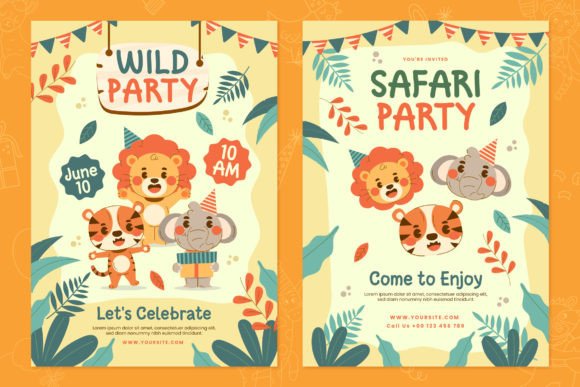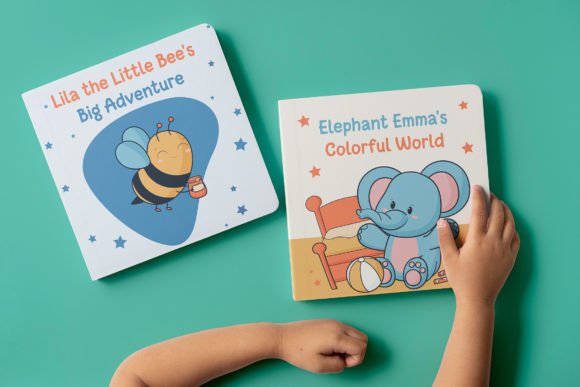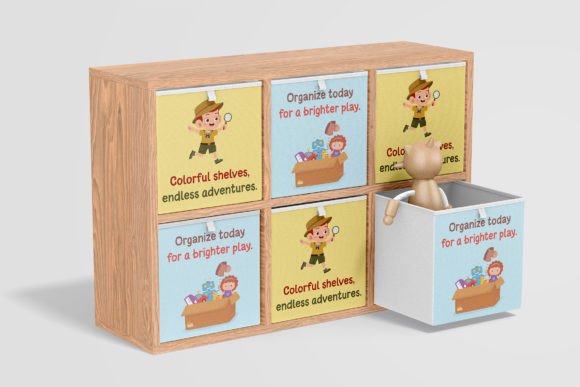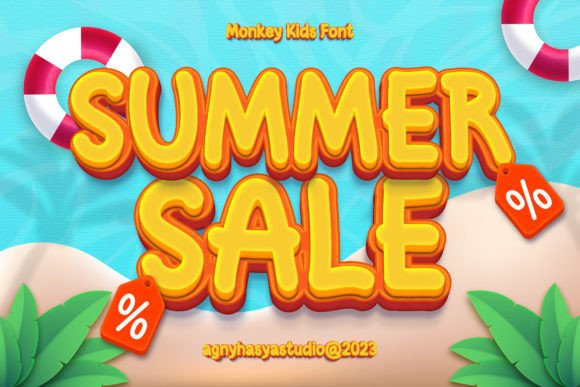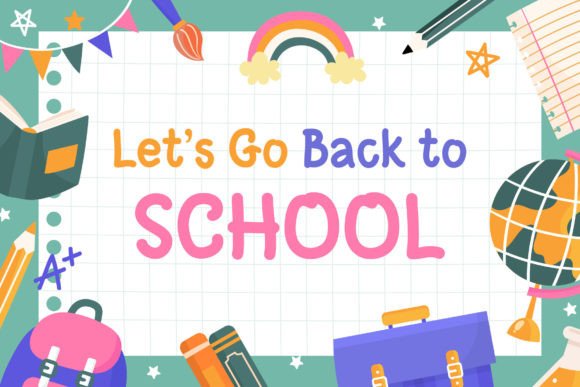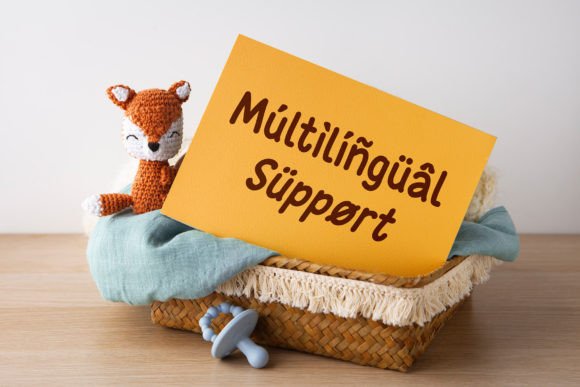
Introduction to Monkey Kids Font
Have you ever stumbled upon a font that makes you smile and instantly sparks a creative idea? For designers, that moment of inspiration can be a game-changer. For me, it was when I discovered the playful and adorable Monkey Kids Font. Its charming characters and versatility make it the perfect addition to any design project.
With its two styles – regular and slant – and an array of alternate and ligature options, Monkey Kids Font is a design resource that’s hard to resist. Whether you’re working on a children’s book, a school project, or a brand identity, this font is sure to bring a touch of whimsy and fun to your creative project. And the best part? It’s available for free download, making it an accessible and high-quality addition to your design toolkit.
As a design enthusiast, I can attest to the value of having a reliable and creative font like Monkey Kids Font in your arsenal. It’s the perfect way to add some personality to your designs and take your projects to the next level. So, let’s dive into the world of Monkey Kids Font and explore its many uses and benefits.
Key Features of Monkey Kids Font
- High-quality, playful design suitable for creative projects and children’s media
- Designed as a design resource for creative professionals and hobbyists alike
- Includes a wide range of characters, including uppercase and lowercase letters, numbers, and special symbols
Honest Review: Monkey Kids Font
As a designer, I’m always on the lookout for unique and high-quality design resources. The Monkey Kids Font is a popular choice among creatives, and I decided to put it to the test in a recent project.
Here are my honest thoughts on the Monkey Kids Font:
- What works well: ✨ The font is incredibly playful and fun, perfect for a kids’ themed project. The characters are adorable and well-designed, making it a great choice for a creative project. ✨
- What works well: ✨ The font is available for free download, making it a great resource for designers on a budget. The transparent background option also gives you flexibility in terms of design.
- ⚠️ The font may not be suitable for all types of projects, particularly those requiring a more serious or professional tone.
- ⚠️ The font can be a bit difficult to customize, particularly if you’re not familiar with font editing software.
Overall, I was impressed with the Monkey Kids Font’s potential for a creative project. With its playful design and transparent background option, it’s a great choice for designers looking for a fun and versatile font. However, it may not be the best fit for all types of projects, so be sure to consider your design goals before making a decision.
Tips for Getting the Most Out of Monkey Kids Font
To get the most out of the Monkey Kids Font, experiment with different font sizes, colors, and combinations with other fonts. You can also use the font in conjunction with other design resources, such as graphics and images, to create a cohesive and engaging design.
The Monkey Kids Font is a versatile design resource that can be used in a variety of creative projects, including children’s books, educational materials, and marketing materials. Its high-quality design and transparent background make it an ideal choice for designers and artists looking to add a unique touch to their work.